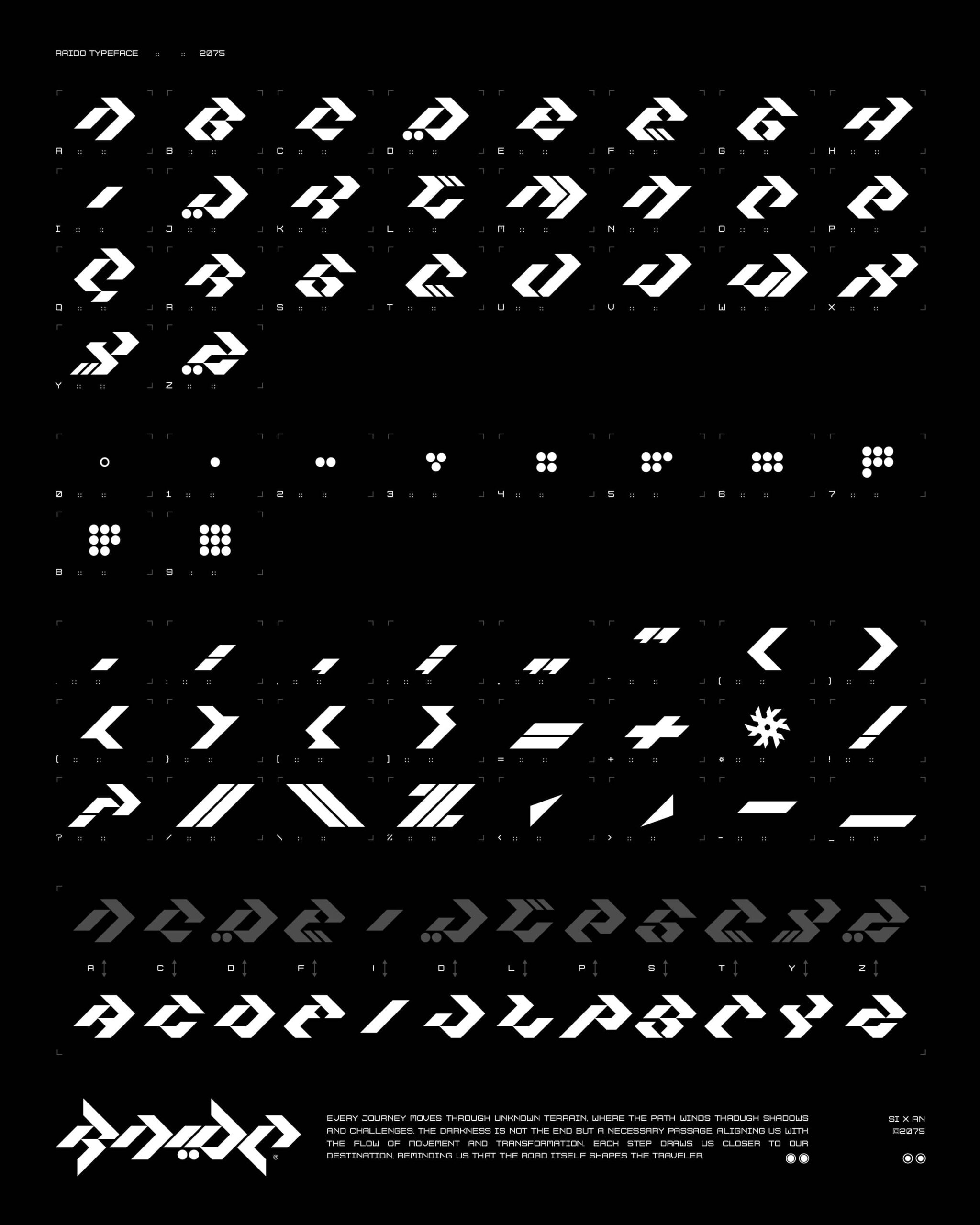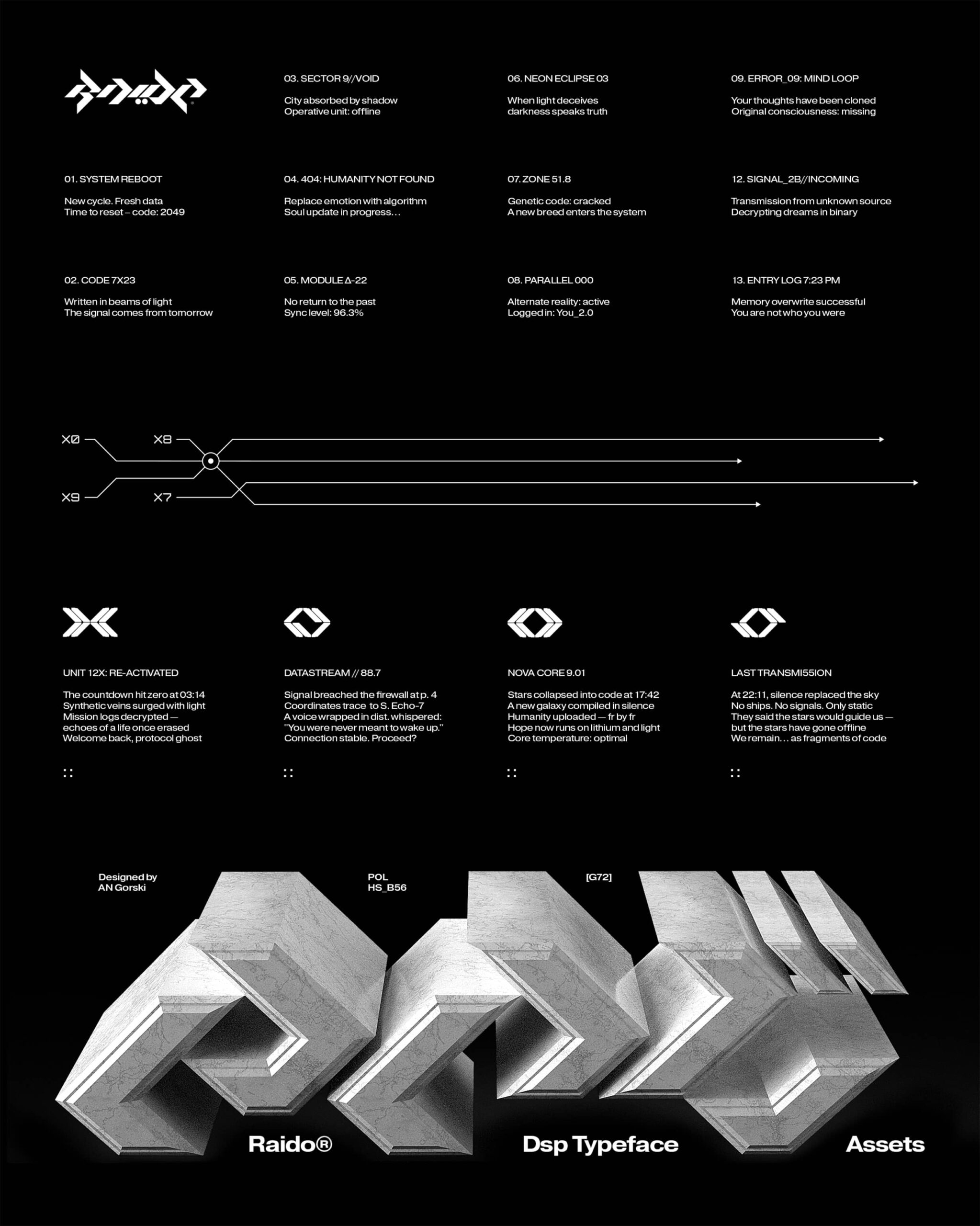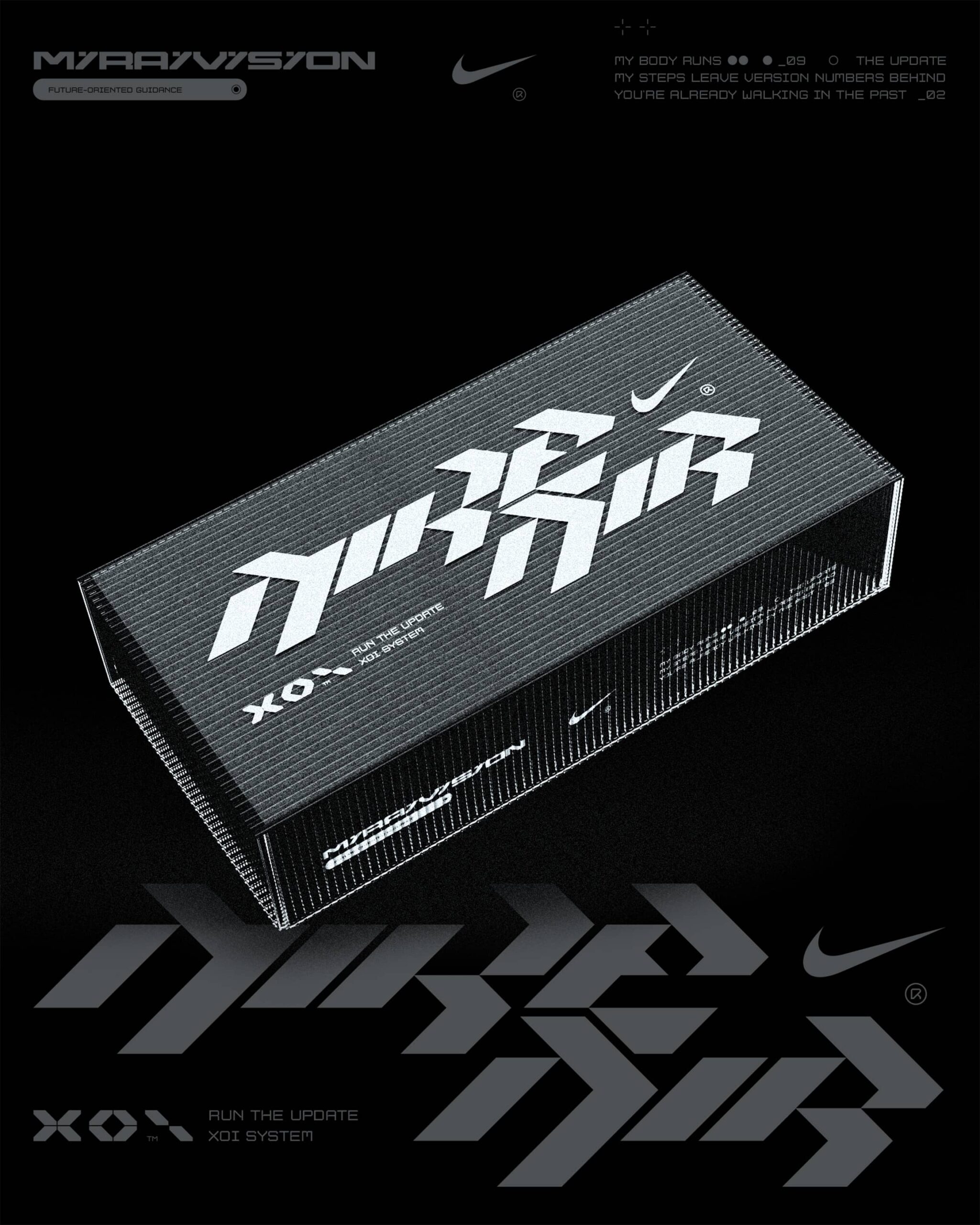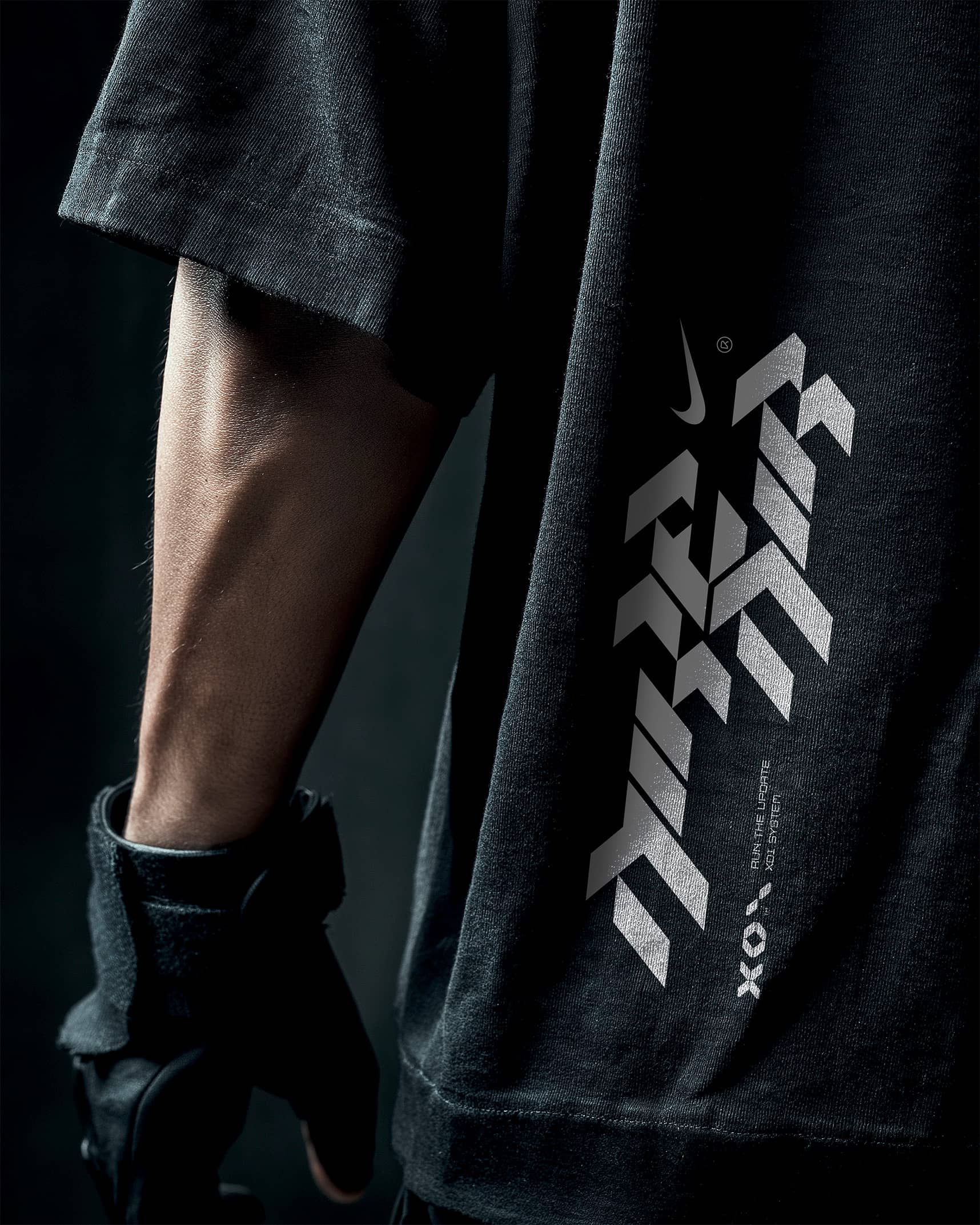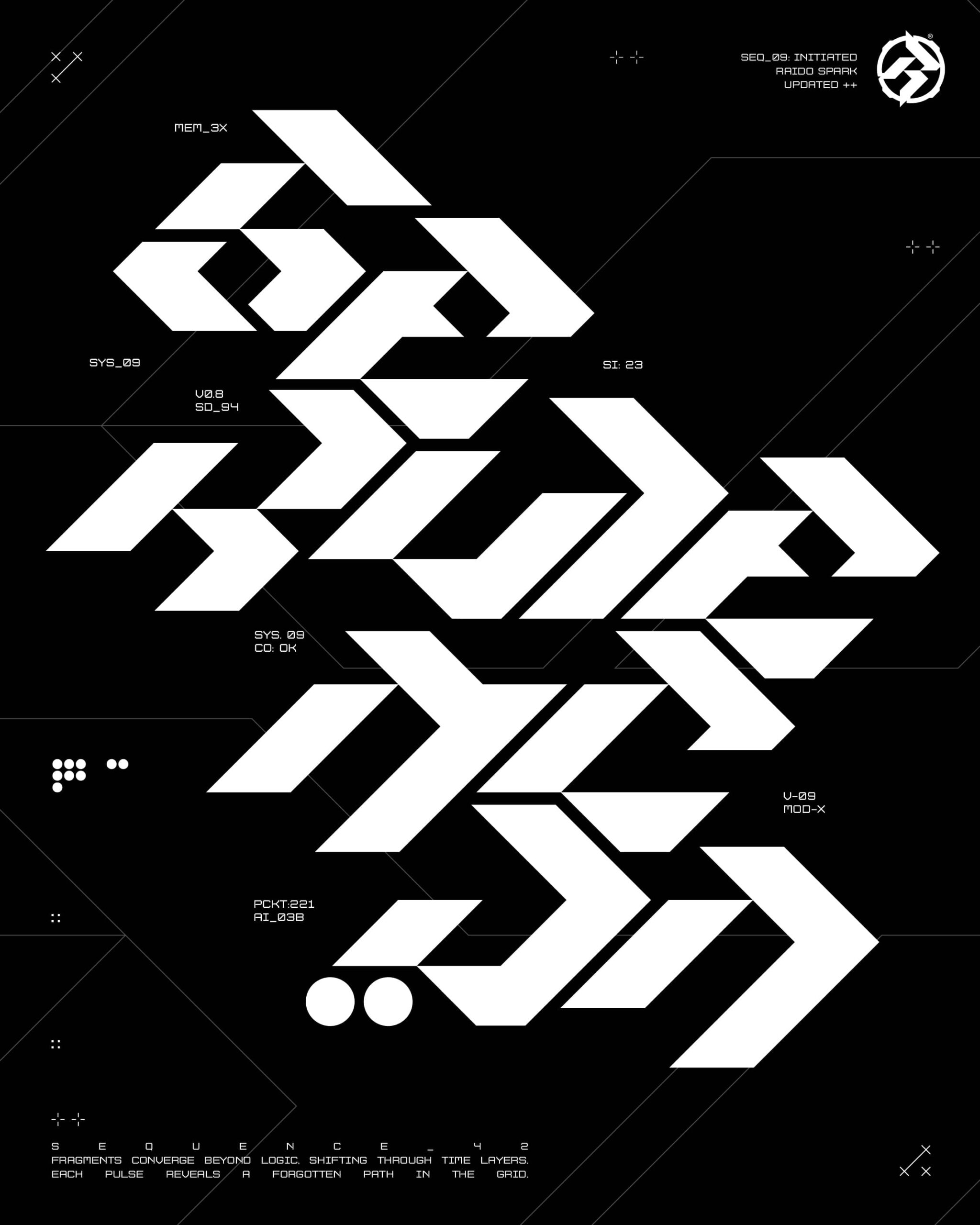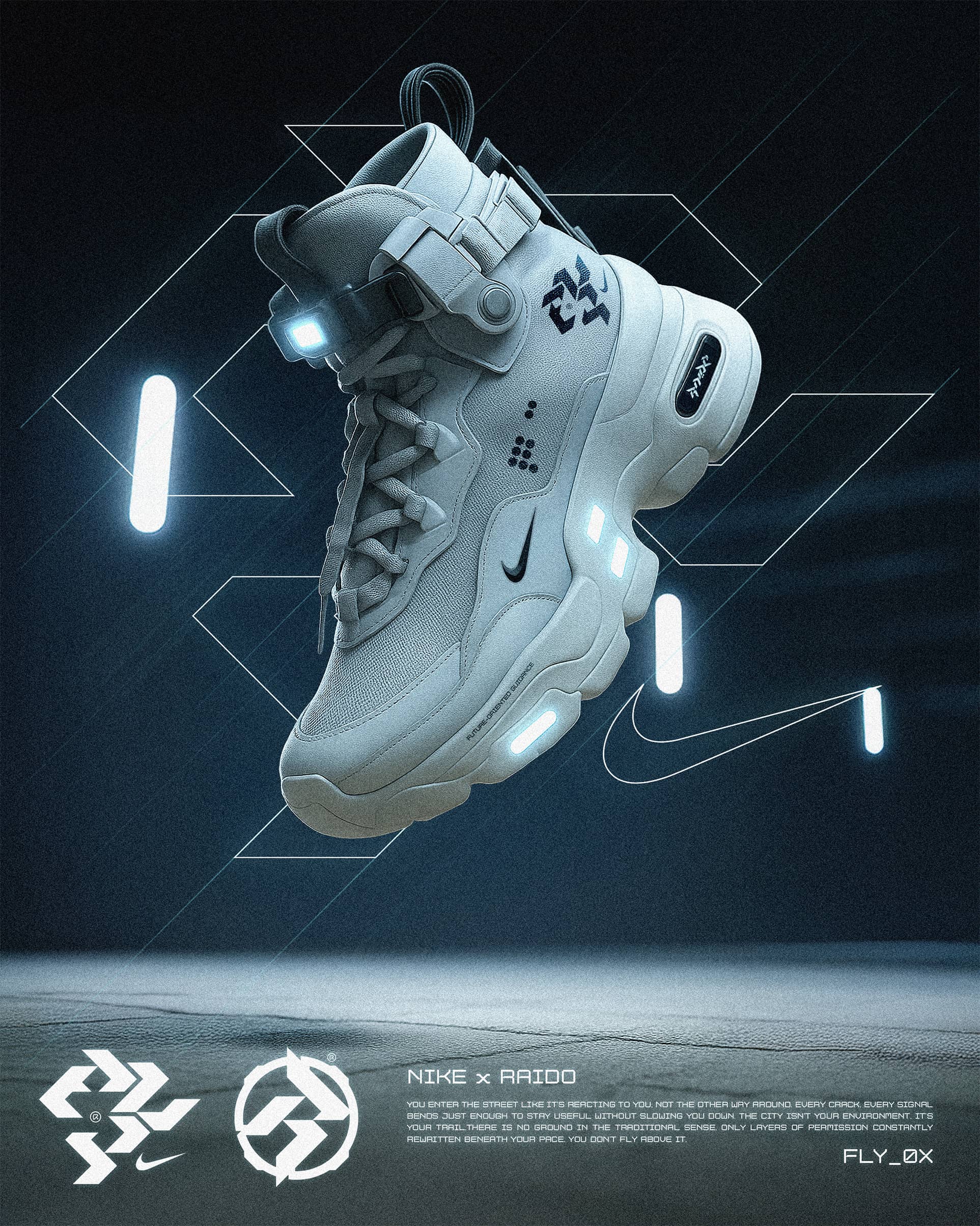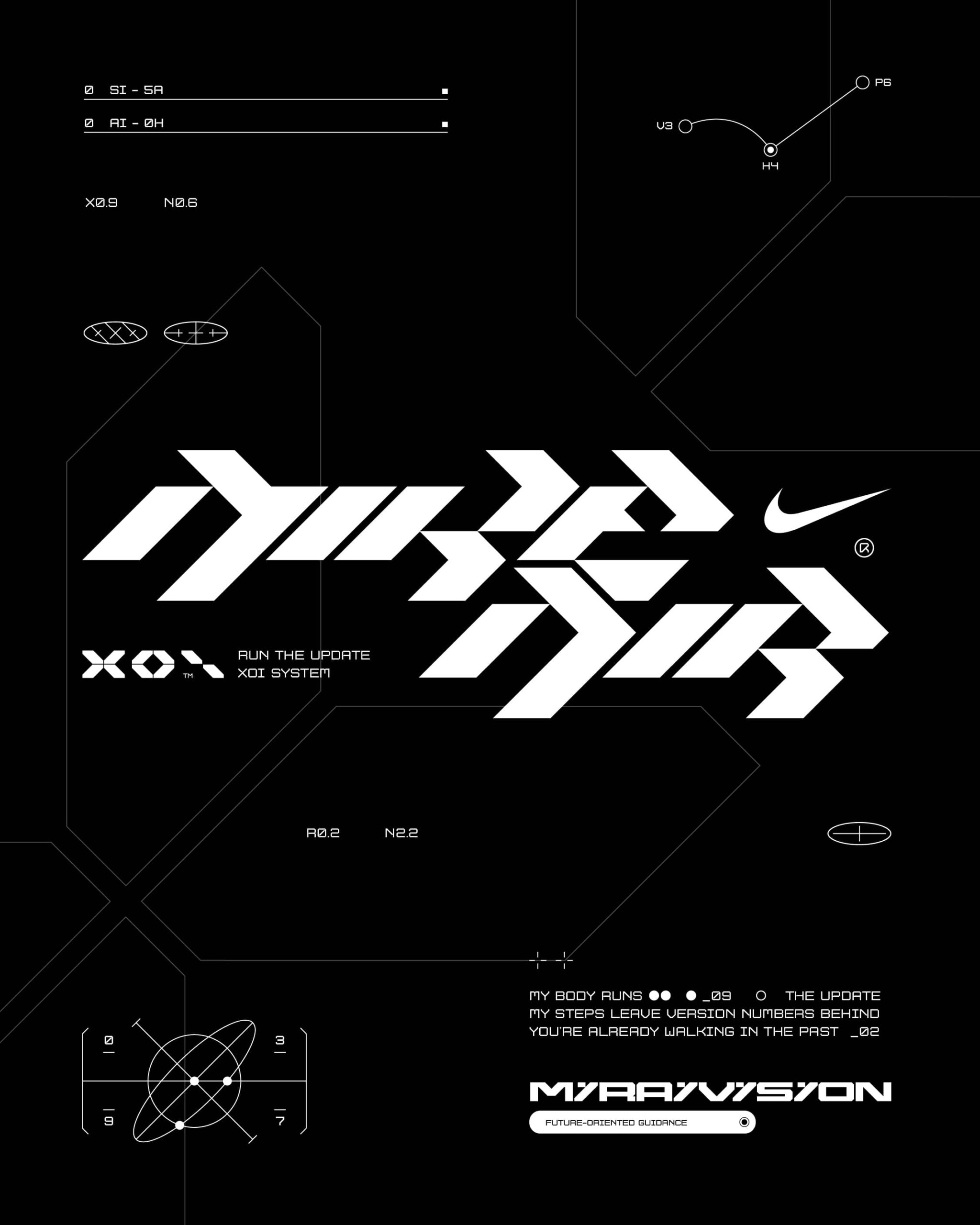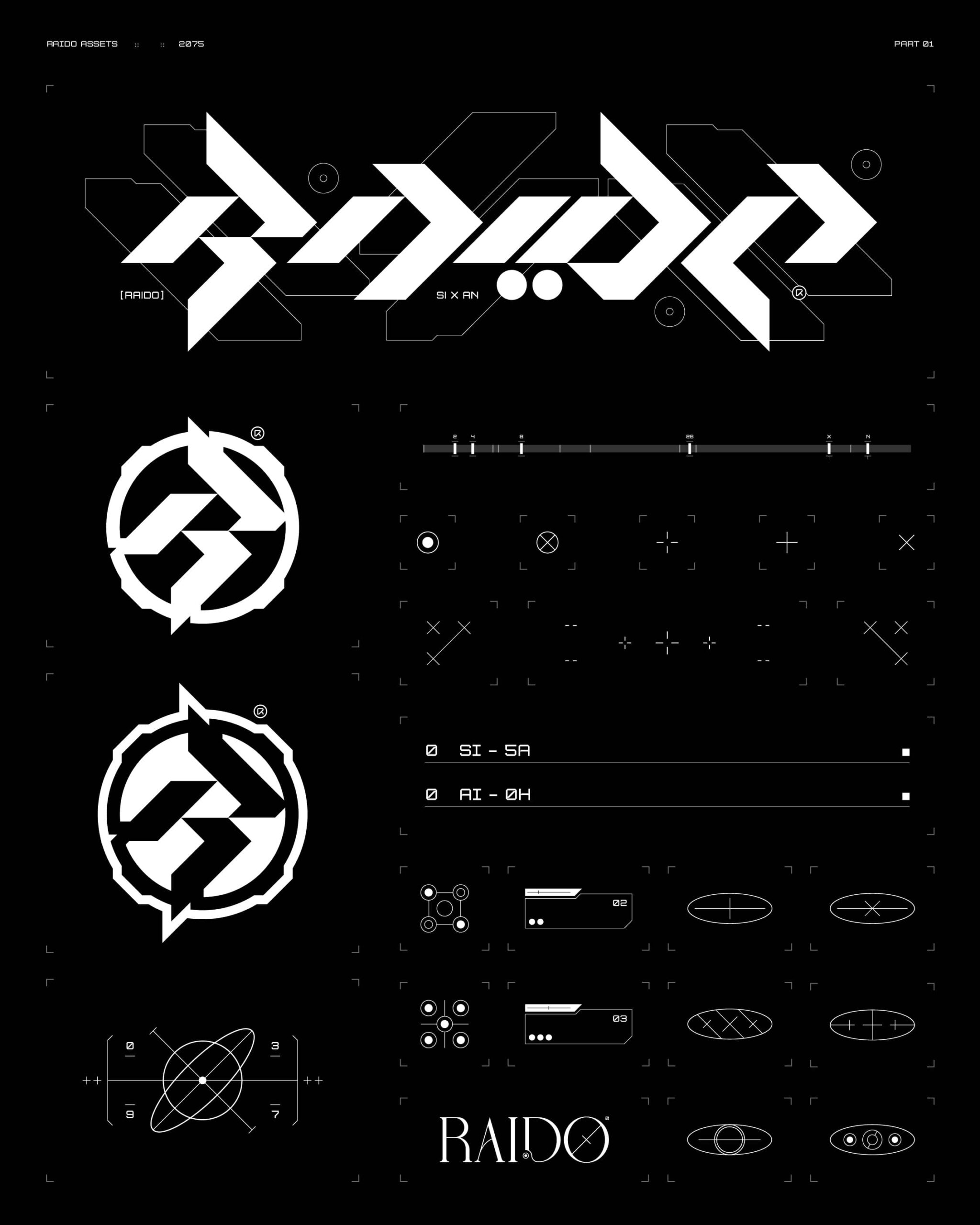
RAIDO is a futuristic font and vector pack — 72 precise geometric glyphs paired with 44 high-tech vector elements designed for sci-fi, cyberpunk, and bold tech-inspired work. The modular vector compositions support hundreds of variations across logos, posters, UI design, and apparel graphics.